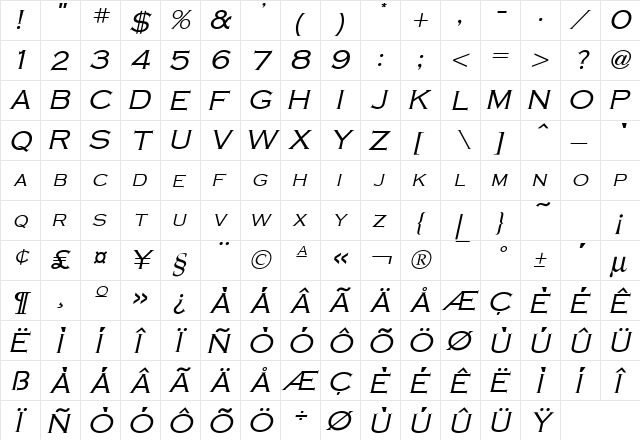
Cobalt Italic
Design Context for Cobalt Typeface
Cobalt takes a measured approach to typography — its balanced proportions and neutral character make it a reliable workhorse for both digital and print work. The slanted form adds forward momentum and visual energy.
Pro Tip: Use Cobalt for emphasis, pull quotes, and subheadings where its slanted energy can add rhythm to the layout.